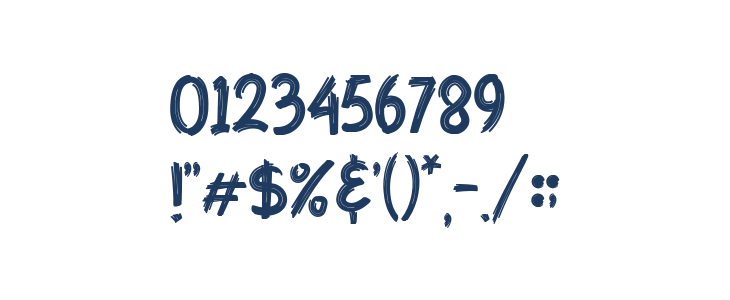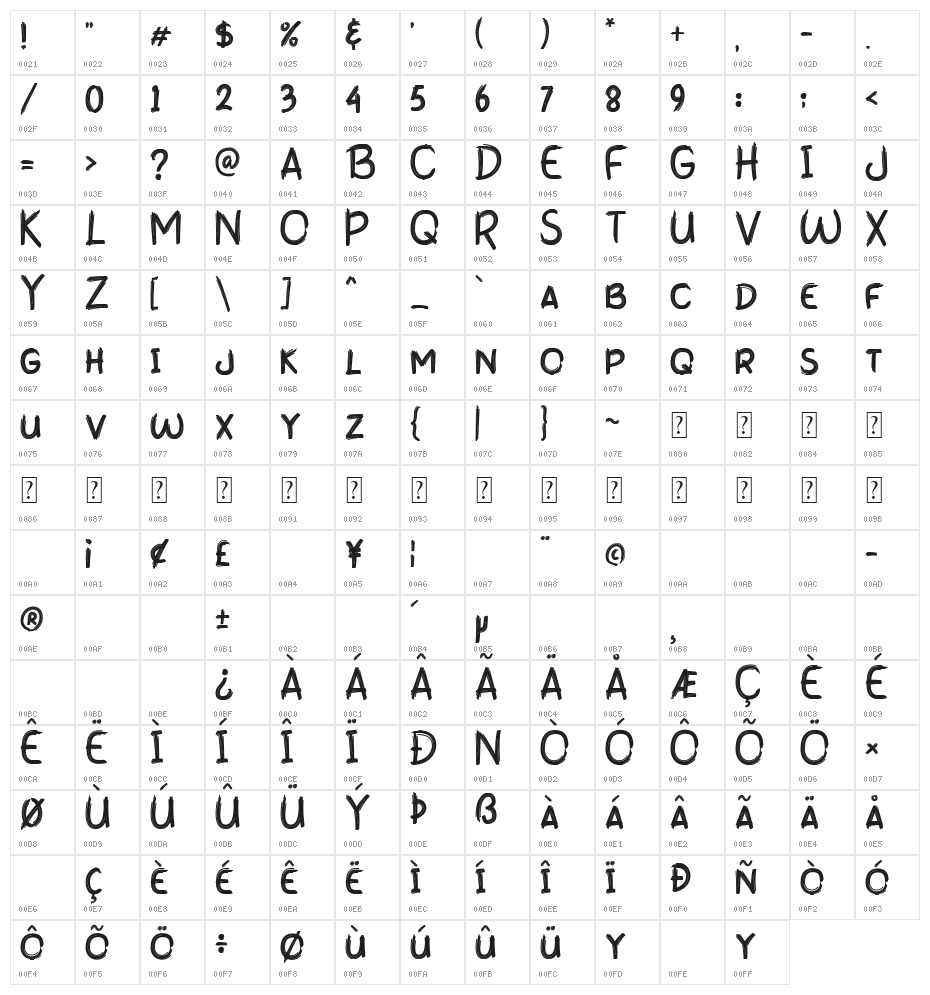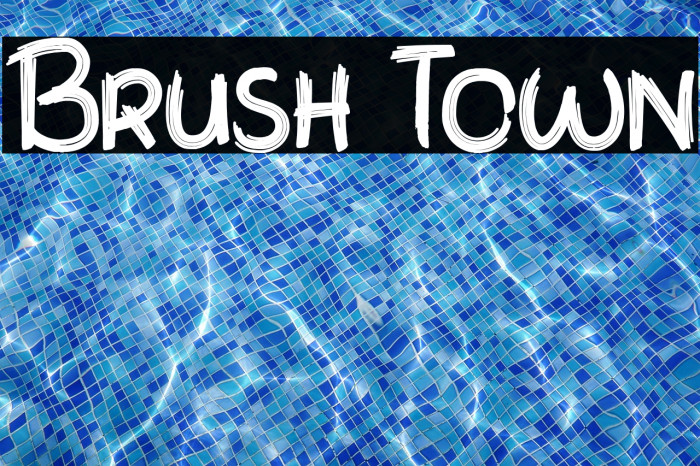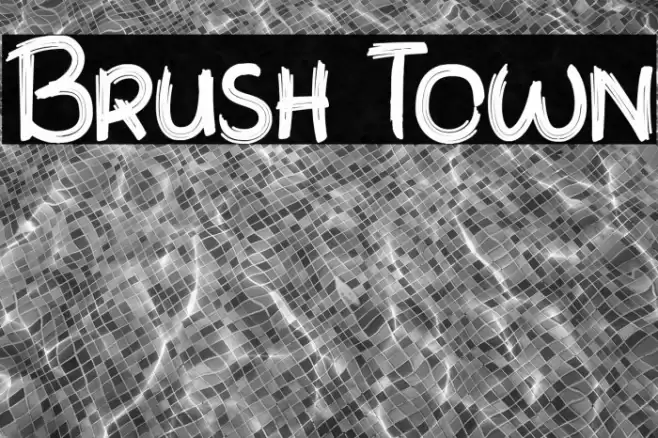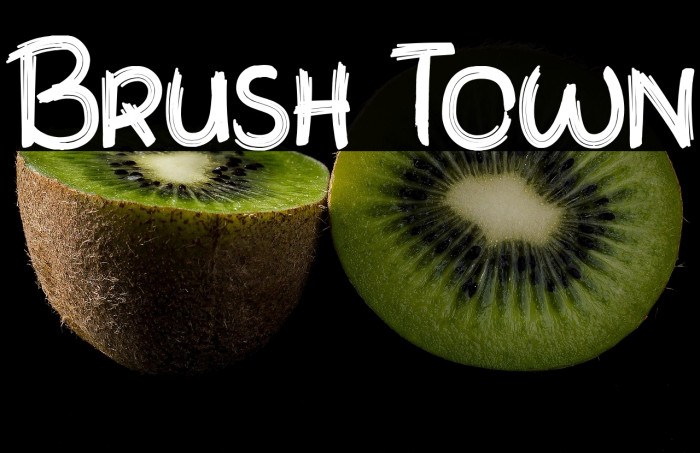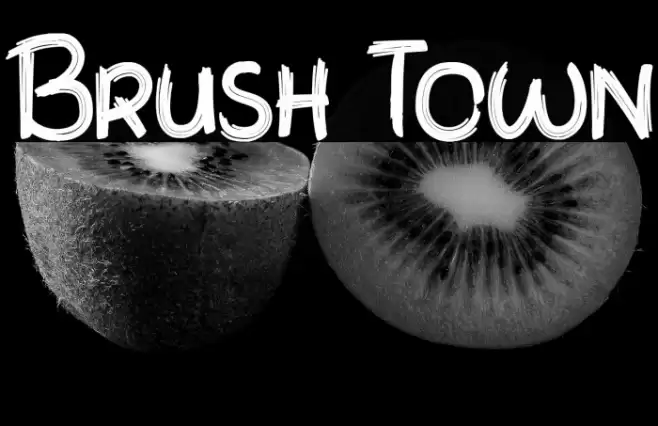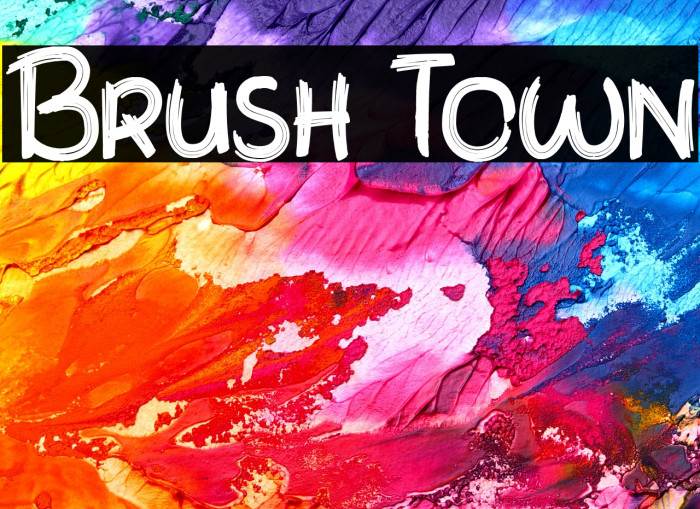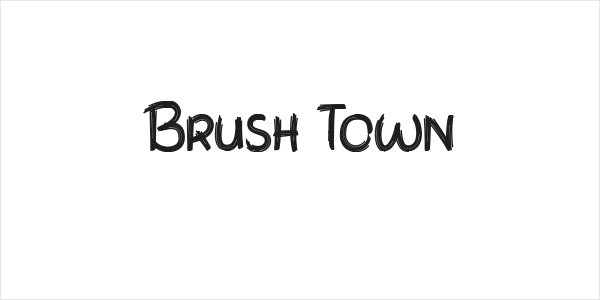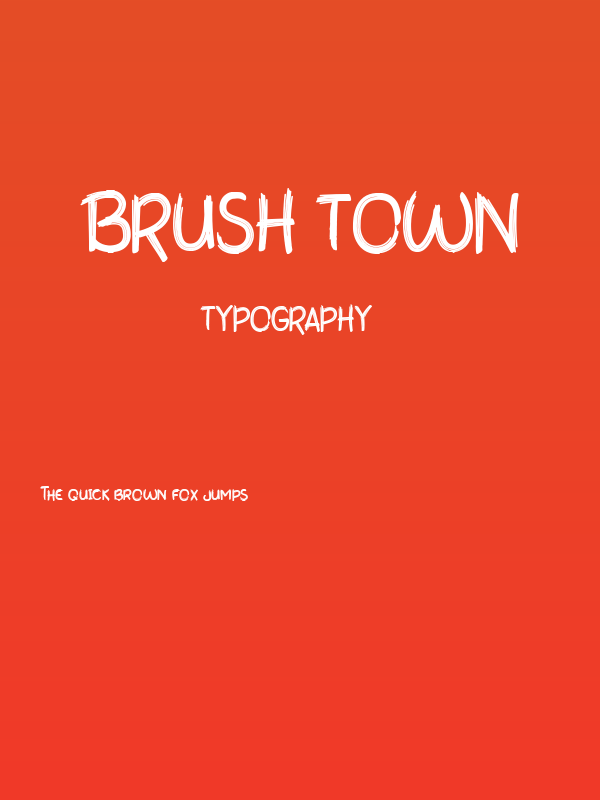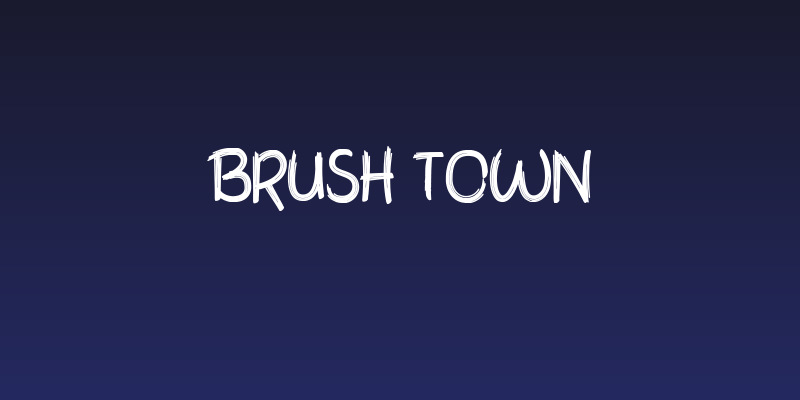
Brush Town Font
Brush Town Description
This font features a bold, brush-like style with a hand-drawn appearance. The characters are dynamic and expressive, with strokes that vary in thickness, giving it a lively and energetic feel. The uppercase and lowercase letters maintain a consistent style, while the numbers and special characters complement the overall aesthetic. The font's rough edges and irregular lines contribute to its artistic and informal look, making it suitable for creative and playful designs.